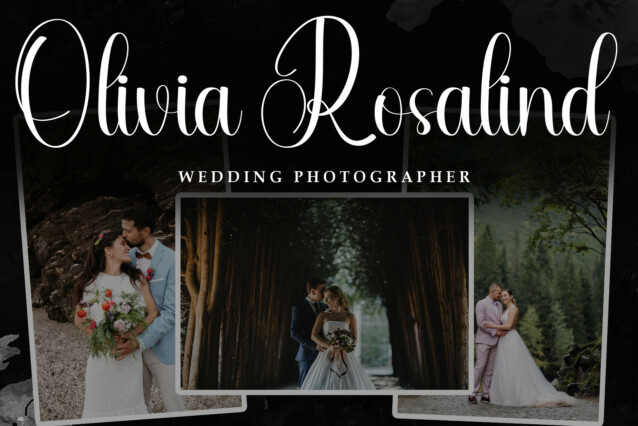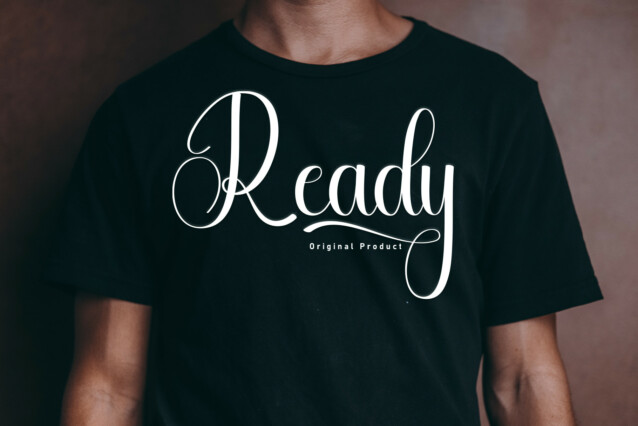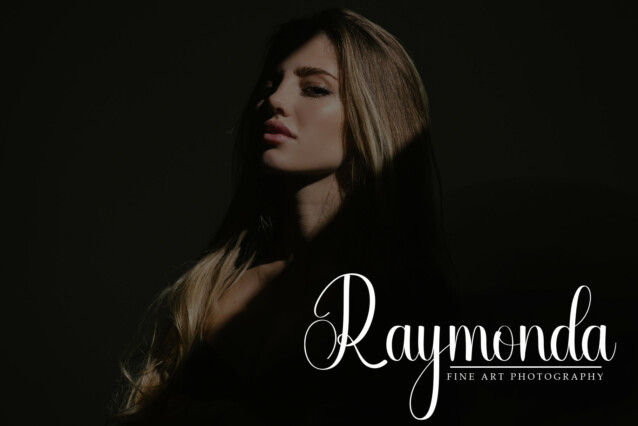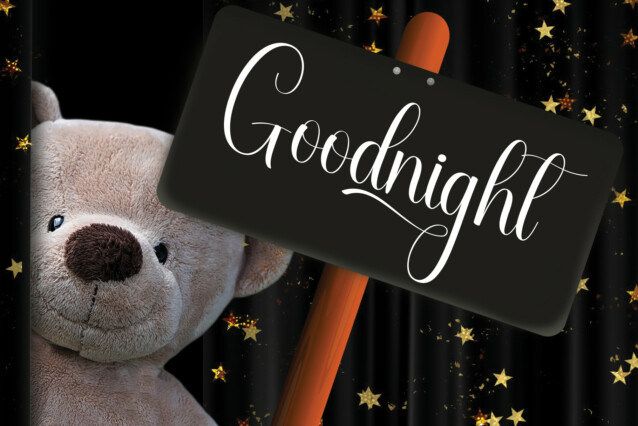
Starlight Script Typeface
Starlight Script Typeface is an elegant and dainty handwritten font that features sweet and delicate swashes. This original look will appeal to a wide range of crafty ideas, from letterheads and titles, to stationery.